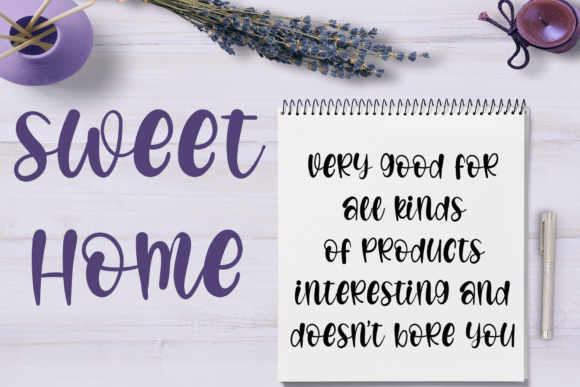
Background Font
db-ku.com - Script & Handwritten -- Background is a fun and friendly handwritten font. Joyful and bright, this font is perfect for children-themed designs, especially when combined with bright colors.